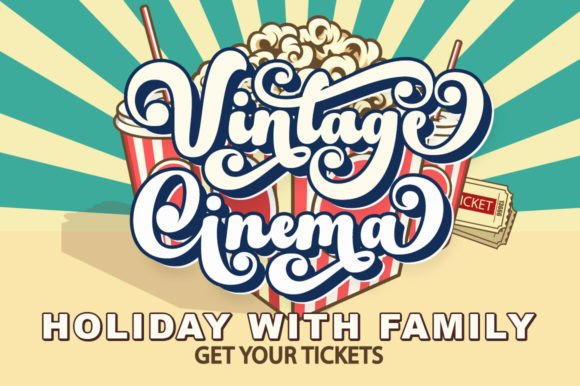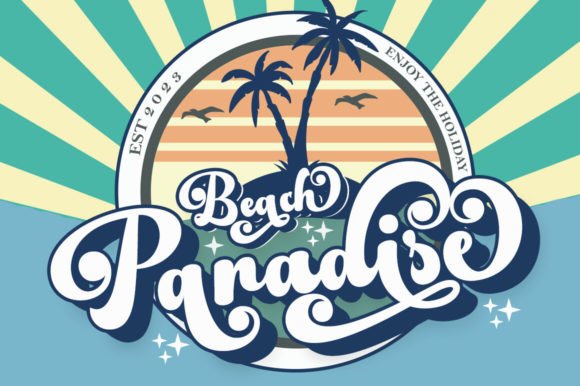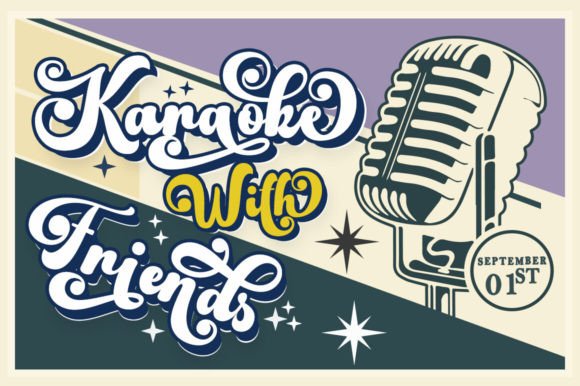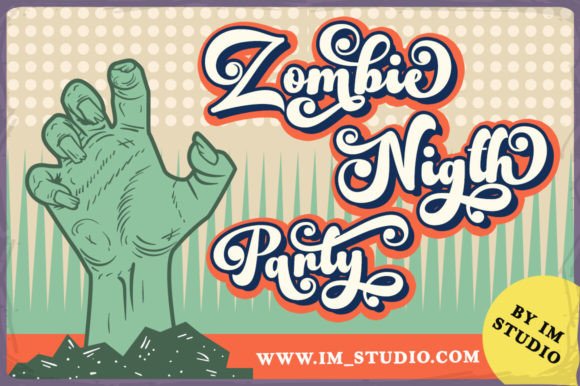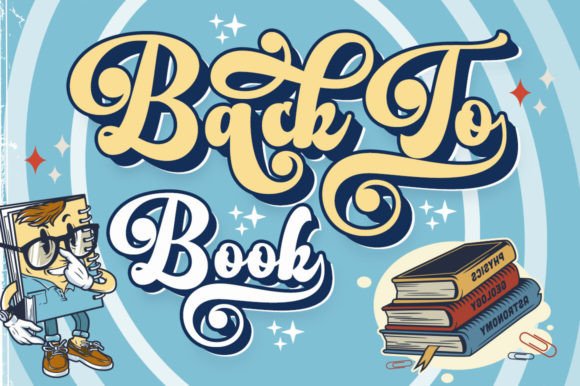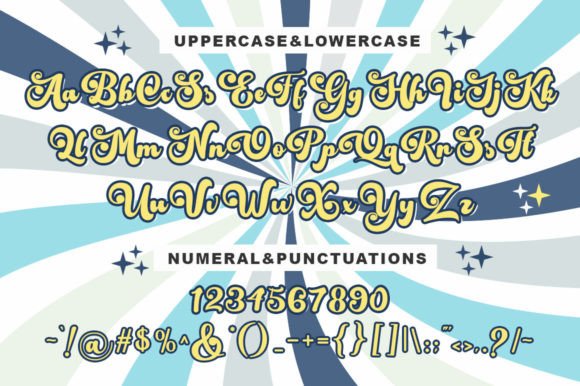
Introducing Autumn Vintage Font: Add a Touch of Retro Charm to Your Designs
Are you looking for a font that can add a playful and nostalgic touch to your designs? Look no further than the Autumn Vintage Font! This beautifully crafted display font is perfect for designers and crafters who want to bring a retro vibe to their creative projects. In this article, we’ll take a closer look at the Autumn Vintage Font and explore its features, benefits, and uses.
What is Autumn Vintage Font?
Autumn Vintage Font is a playfully nostalgic display font that is designed to evoke a sense of retro charm. Its unique and masterful design makes it a true favorite among designers and crafters. With its intricate details and classic feel, this font is perfect for adding a touch of vintage flair to any design idea you can think of.
Key Features of Autumn Vintage Font
- Playful and Nostalgic Design: Autumn Vintage Font has a playful and nostalgic design that is sure to capture the attention of your audience.
- Retro Touch: This font adds a retro touch to any design, making it perfect for projects that require a vintage feel.
- Masterfully Designed: The font is masterfully designed to become a true favorite among designers and crafters.
- Incredible Display Font: Autumn Vintage Font is an incredible display font that can be used to add a special touch to any design idea.
Benefits of Using Autumn Vintage Font
Using Autumn Vintage Font can bring numerous benefits to your designs. Here are a few:
- Stand Out from the Crowd: With its unique and retro design, Autumn Vintage Font can help your designs stand out from the crowd.
- Add a Touch of Personality: This font can add a touch of personality to your designs, making them more engaging and memorable.
- Perfect for Various Design Projects: Autumn Vintage Font can be used for various design projects, including branding, packaging, posters, and more.
- Easily Readable: Despite its intricate details, Autumn Vintage Font is easily readable, making it perfect for display text.
Uses of Autumn Vintage Font
Autumn Vintage Font can be used in a variety of design projects, including:
- Branding and Logo Design: Use Autumn Vintage Font to create a unique and memorable logo for your brand.
- Packaging Design: Add a retro touch to your packaging designs with this beautiful font.
- Poster Design: Create eye-catching posters with Autumn Vintage Font and add a touch of vintage flair.
- Social Media Graphics: Use this font to create engaging social media graphics that stand out from the crowd.
Tips for Using Autumn Vintage Font
Here are a few tips for using Autumn Vintage Font:
- Use it as a Display Font: Autumn Vintage Font is perfect for display text, so use it to add a touch of retro charm to your headings and titles.
- Pair it with a Simple Font: Pair Autumn Vintage Font with a simple font to create a beautiful contrast and make your designs more readable.
In conclusion, Autumn Vintage Font is a beautifully crafted display font that can add a playful and nostalgic touch to your designs. With its unique and masterful design, this font is perfect for designers and crafters who want to bring a retro vibe to their creative projects. Whether you’re looking to create a brand logo, packaging design, poster, or social media graphic, Autumn Vintage Font is a great choice. So why wait? Download Autumn Vintage Font today and take your designs to the next level!